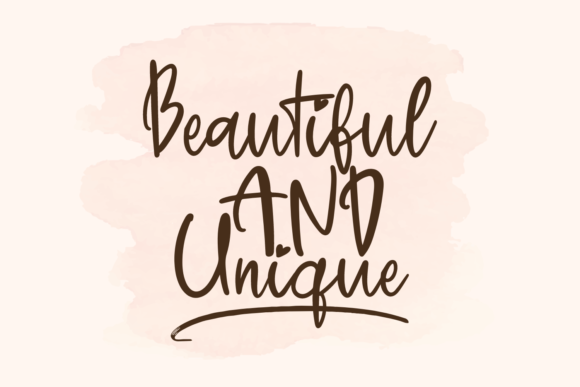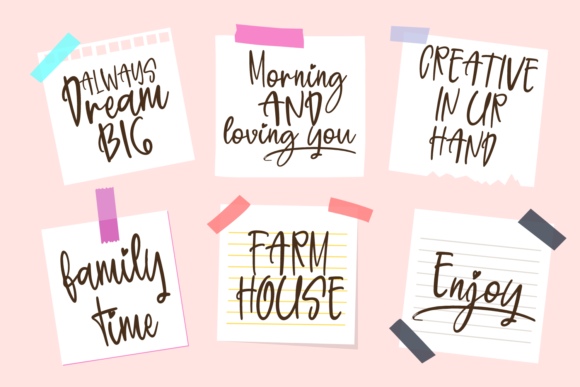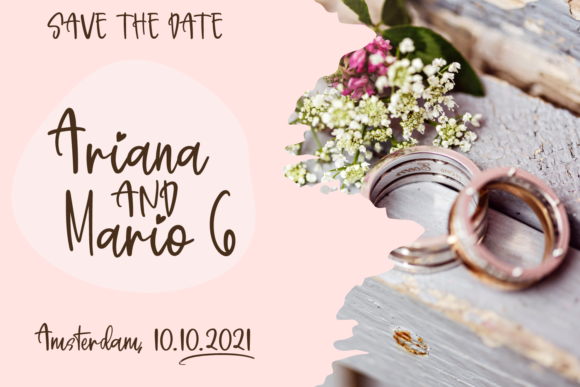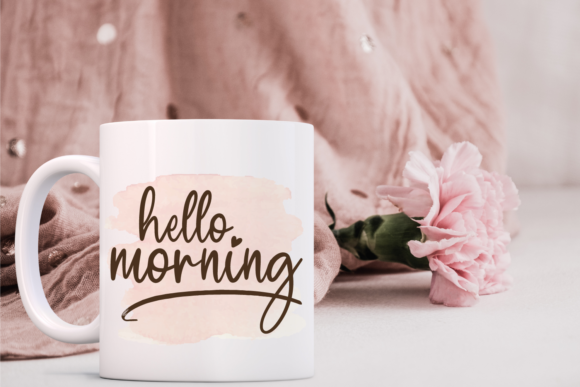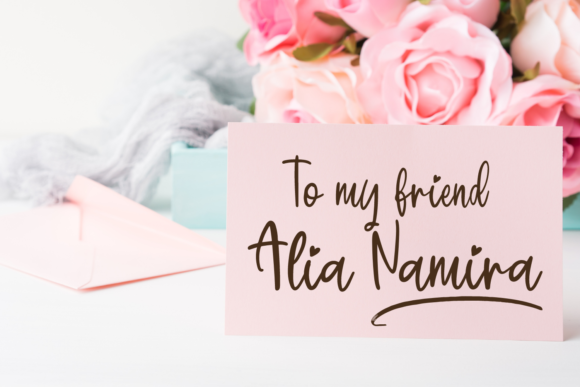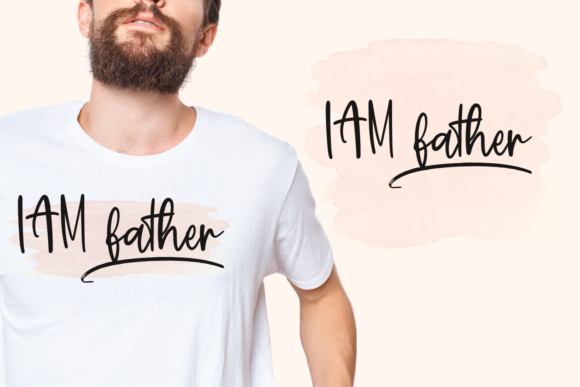
Introduction to Pillowtalk Font
Do you remember that moment when a design idea just pops into your head and you can’t wait to bring it to life? For me, it’s often in the dead of night, when the world outside is quiet and my imagination runs wild. It’s in these moments that I crave the perfect design resource to help me breathe life into my creative vision. And that’s where the Pillowtalk Font comes in – a beautiful handwritten font that’s as versatile as it is stunning.
Whether you’re a seasoned designer or a crafty enthusiast, the Pillowtalk Font is a valuable addition to your toolkit. Its high-quality, handwritten style makes it perfect for a wide range of creative projects, from inspirational posters to brand promotion. And the best part? It’s available for free download, so you can add it to your work without breaking the bank.
Key Features of Pillowtalk Font
- High-quality design resource with a unique, modern aesthetic
- Transparent background, ideal for creative projects requiring a clean and minimalist look
- Includes a range of glyphs and characters, perfect for use in logos, typography, and branding
- Designed with a focus on legibility and readability, making it perfect for use in body text and headings
Honest Review: Pillowtalk Font
I recently had the chance to dive into the world of design resources, and I must say that the Pillowtalk Font caught my eye. This elegant script font is perfect for adding a touch of sophistication to your creative project. ✨
- High-quality design that exudes elegance and sophistication.
- Perfect for adding a touch of whimsy to your design.
- Some users may find the font to be a bit too ornate for certain designs.
- The transparent background option can sometimes be a bit tricky to work with.
Overall, I was impressed with the Pillowtalk Font. Its high-quality design and elegant script style make it an excellent addition to any design project. The free download option is also a major plus. While it may not be perfect for every design, it’s definitely worth considering for your next creative project. ✨
How to Use Pillowtalk Font
The Pillowtalk Font is a versatile and stylish font that can elevate any creative project. It offers a high-quality design resource with a transparent background, making it perfect for various applications.
Getting the Most Out of Pillowtalk Font
To get the most out of Pillowtalk Font, experiment with different font sizes, colors, and combinations. This will help you achieve a unique and eye-catching design.
The Pillowtalk Font is perfect for various creative projects, including:
Alternatives to Pillowtalk Font
The Great Vibes Font is a beautiful, handwritten font that is perfect for creative projects requiring a touch of elegance. It features a high-quality design with a transparent background, making it ideal for use on various backgrounds. When to use: Great Vibes Font is suitable for wedding invitations, greeting cards, and other romantic designs.
Comparison to Pillowtalk Font: Great Vibes Font has a similar handwritten feel, but with more delicate and intricate details, making it a great choice for projects requiring a softer look.
The Alex Brush Font is a high-quality, elegant font that is perfect for design projects requiring sophistication. It features a classic design with a transparent background, making it ideal for use on various backgrounds. When to use: Alex Brush Font is suitable for luxury brands, high-end packaging, and other creative projects requiring a touch of class.
Comparison to Pillowtalk Font: Alex Brush Font has a more classic and elegant feel, making it a great choice for projects requiring a more refined look.
The Ostrich Sans Font is a modern, sans-serif font that is perfect for design projects requiring a clean and minimalist look. It features a high-quality design with a transparent background, making it ideal for use on various backgrounds. When to use: Ostrich Sans Font is suitable for tech companies, startups, and other modern designs.
Q: Does the Pillowtalk Font come with a transparent background?
Yes, the Pillowtalk Font is available with a transparent background, making it easy to use in design applications that support layering or blending modes. This feature allows you to create stunning visual effects and add depth to your creative project.